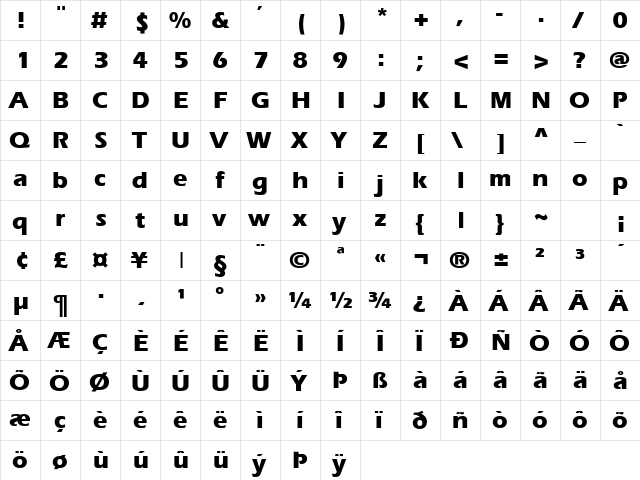
Eerie Bold Regular
Design Context for Eerie Bold Typeface
Eerie Bold takes a measured approach to typography — its balanced proportions and neutral character make it a reliable workhorse for both digital and print work. Its bold stroke weight gives it real presence on the page.